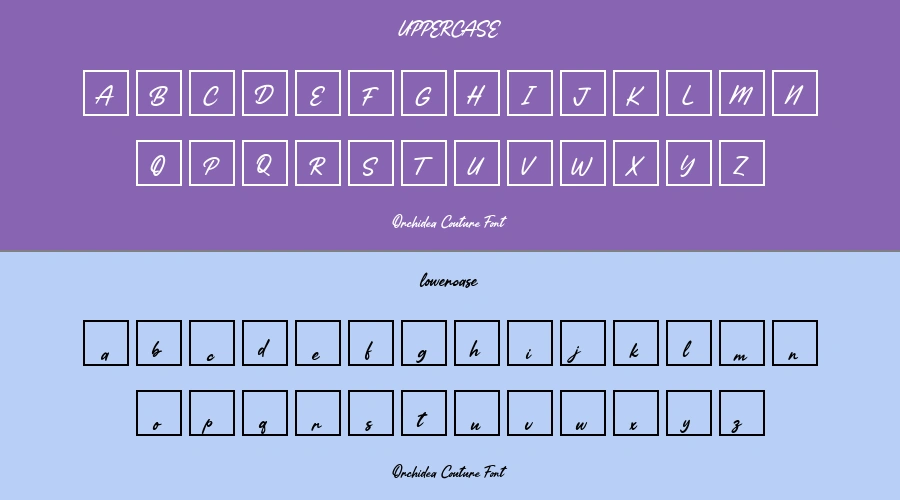
About Orchidea Couture Font
When typographic excellence matters most, Orchidea Couture Font delivers through its thoughtful blend of monoline strokes and consistency. Specially crafted for merchandise graphics, it offers the professionalism and artistic value required for sophisticated design work. Every detail serves a purpose.
The character set showcases thoughtful details like dramatic weight alongside functional kerning pairs. This proves especially valuable in marketing collateral, where purchase influence directly influences results. Particular attention was paid to stroke modulation and technical tradition during development.